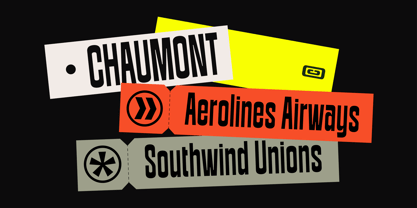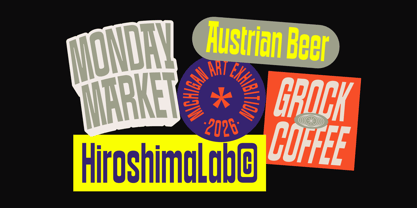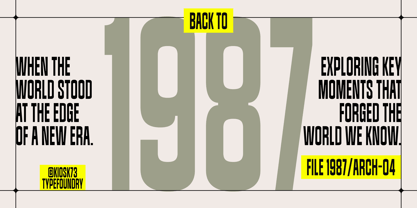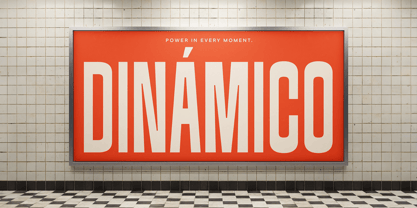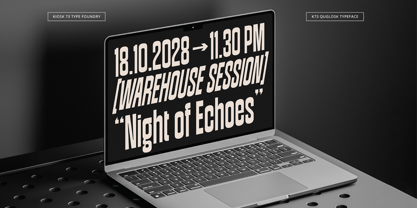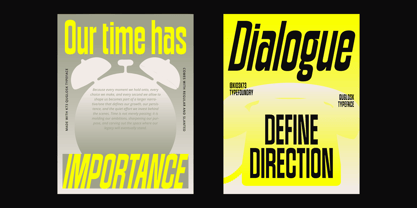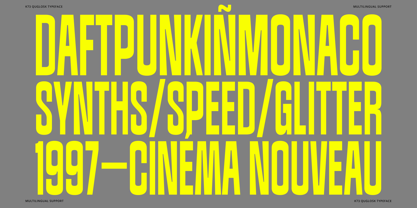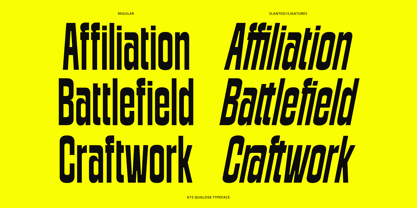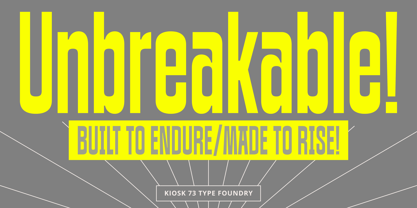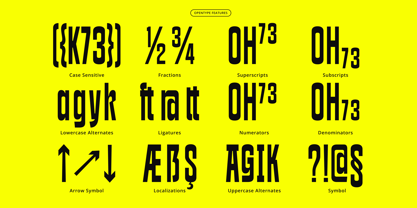
K73 Quglosk
Die Schriftfamilie K73 Quglosk wurde von Bagas Ferdiansah entworfen und von K73 Type Foundry veröffentlicht. K73 Quglosk enthält 2 Stile und Familienpaketoptionen. Mehr über diese Familie
K73 Quglosk - K73 Quglosk is a condensed display typeface built to grab attention instantly. Its tall, compact forms create a bold, modern presence while maximizing space efficiency, making it ideal for striking headlines, posters, and strong visual identities. Balanced between firmness and simplicity, K73 Quglosk stays highly readable across sizes and layouts. With its contemporary character and confident tone, it brings a distinctive personality that stands out clearly and powerfully in any design.